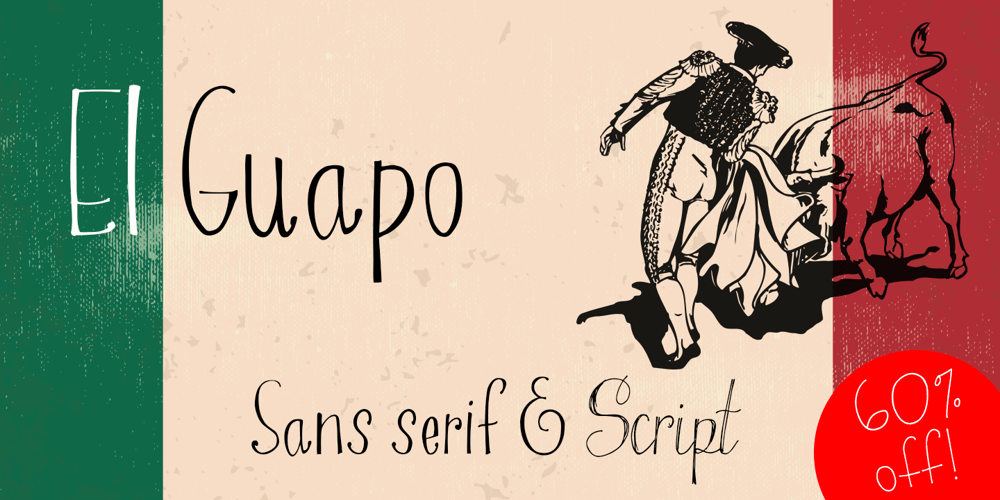
El Guapo Font Family was designed by Kent Swecker, Erin Solomon and published by A New Machine. El Guapo contains 4 styles and family package options. El Guapo is a hand drawn font available in sans serif and script faces. It is suitable for headlines and call outs of all kinds where a hand made look is desired. The letters were drawn by Prissy Pots owner Erin Solomon and include regular and bold versions. Each face also includes an entirely separate set of lowercase letters accessible in your glyphs palette. These extra letter will automatically show up with contextual alternates turned on for a more natural, random look.